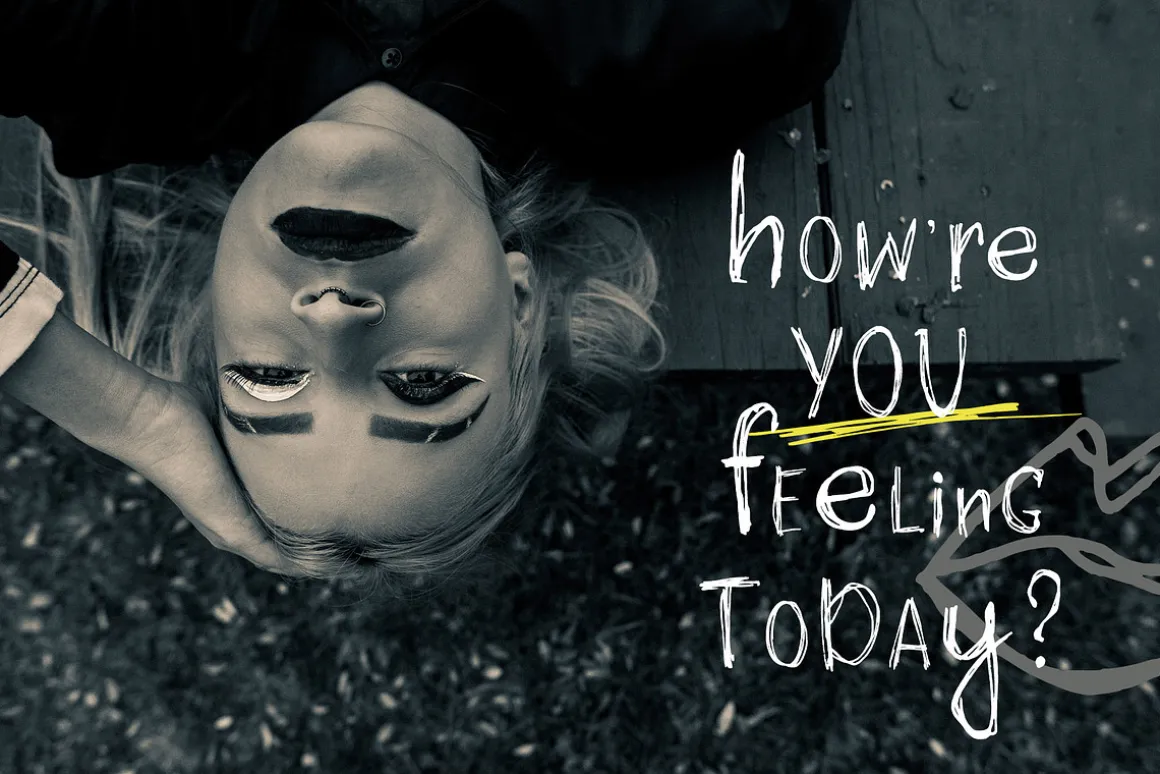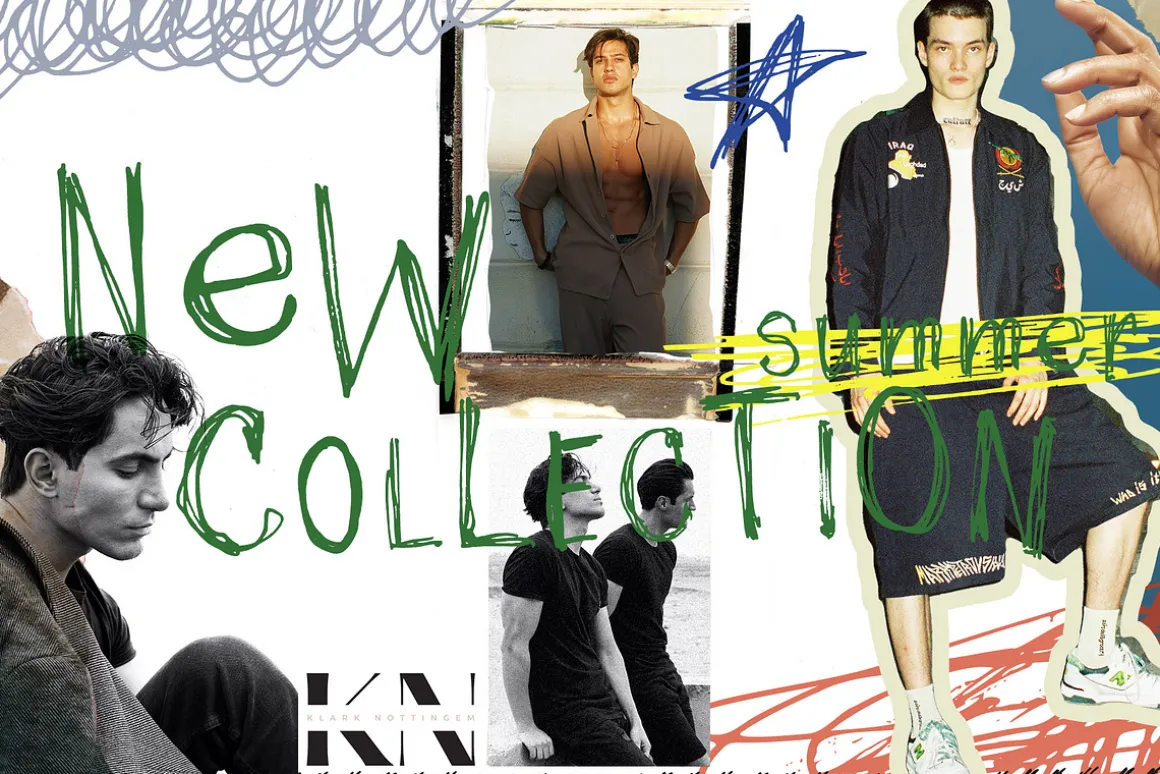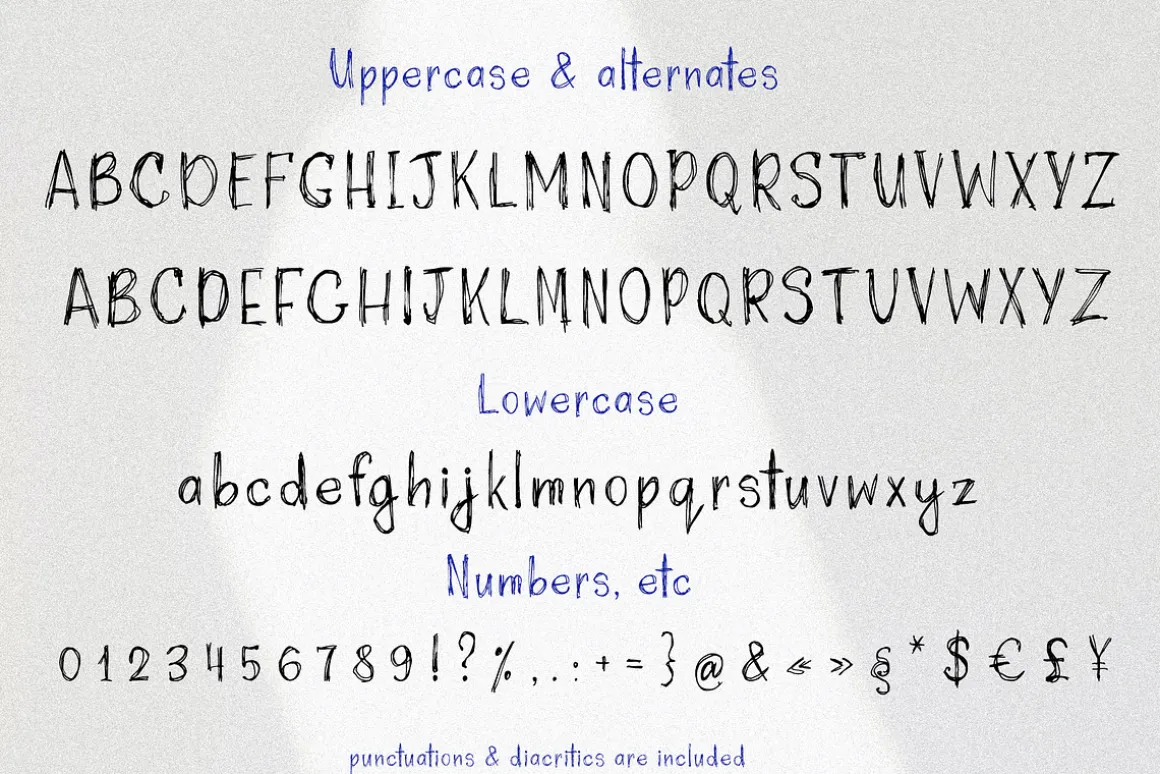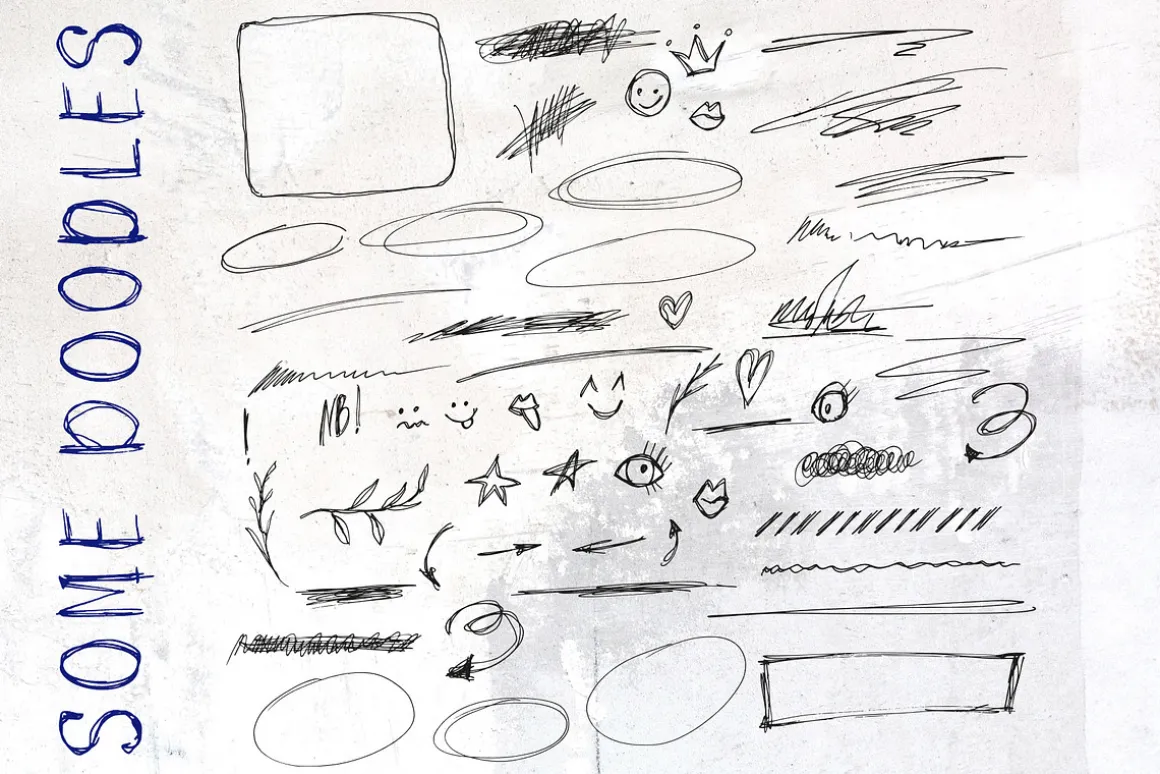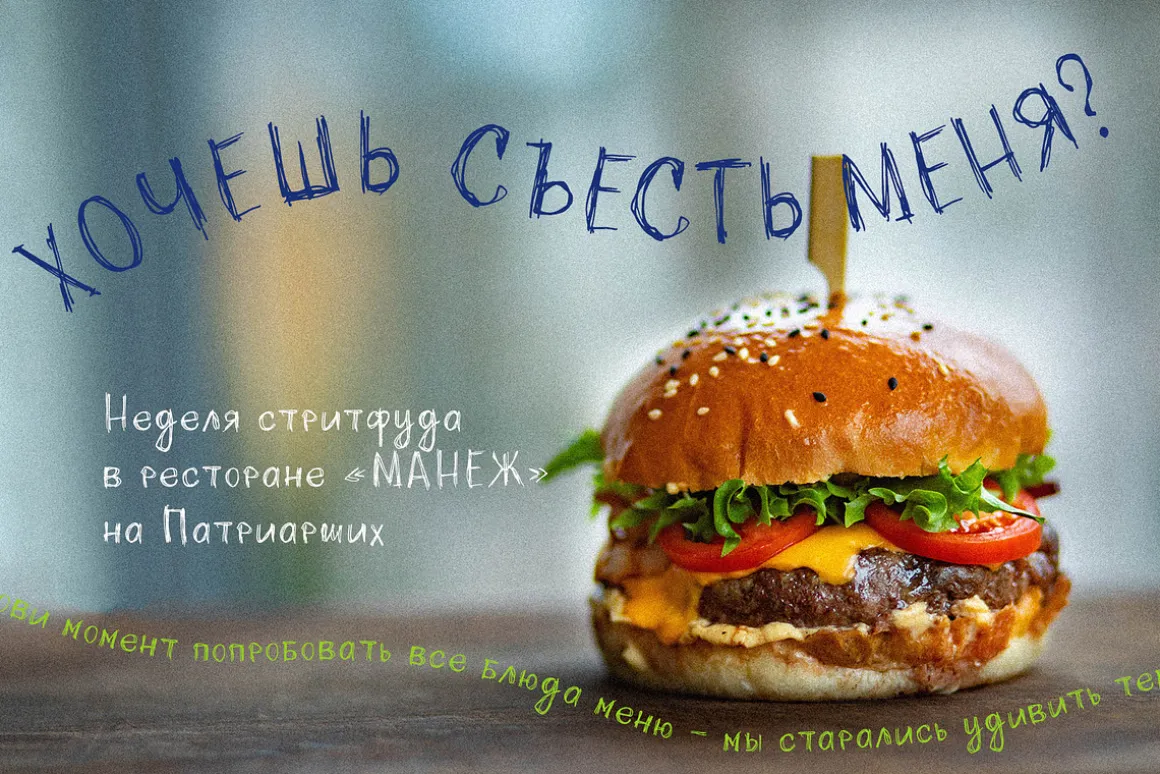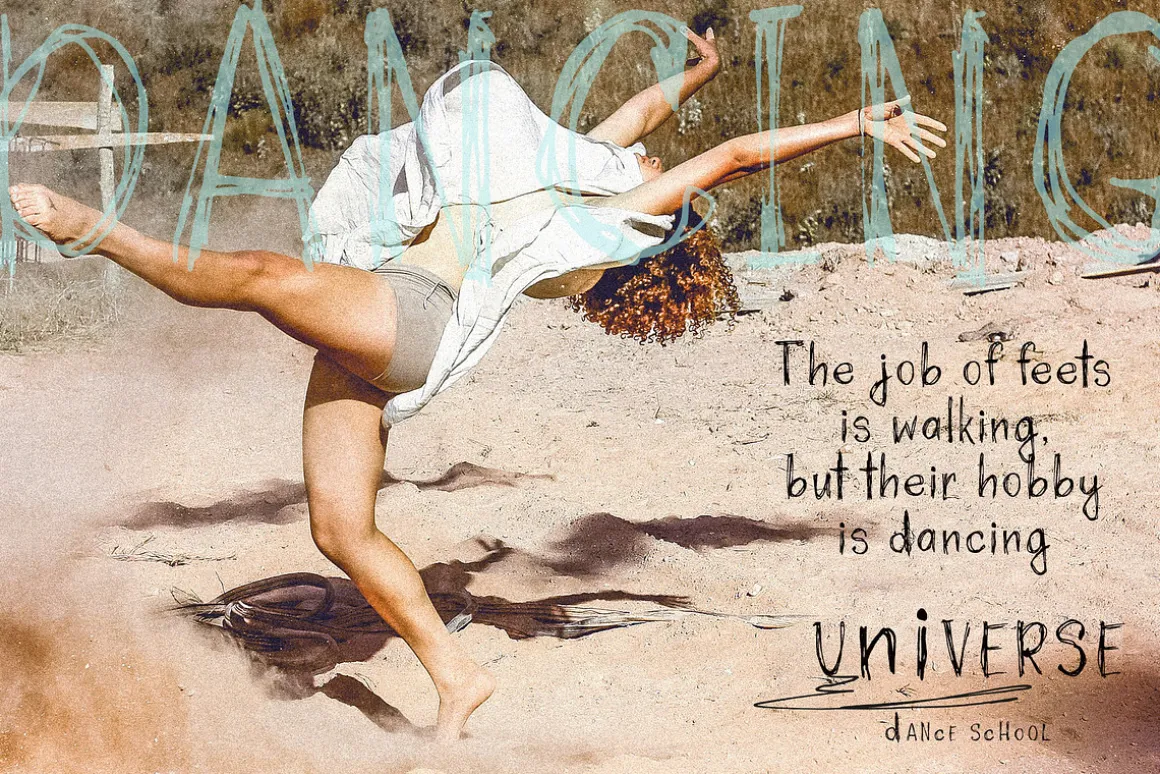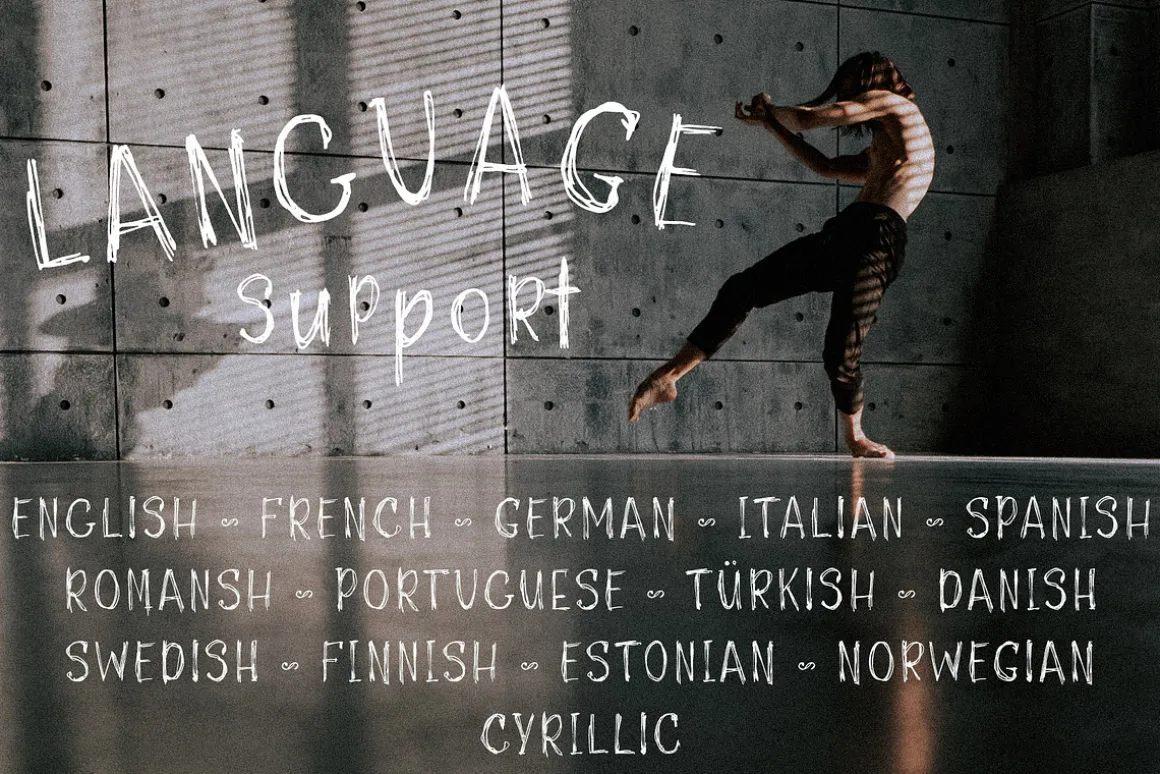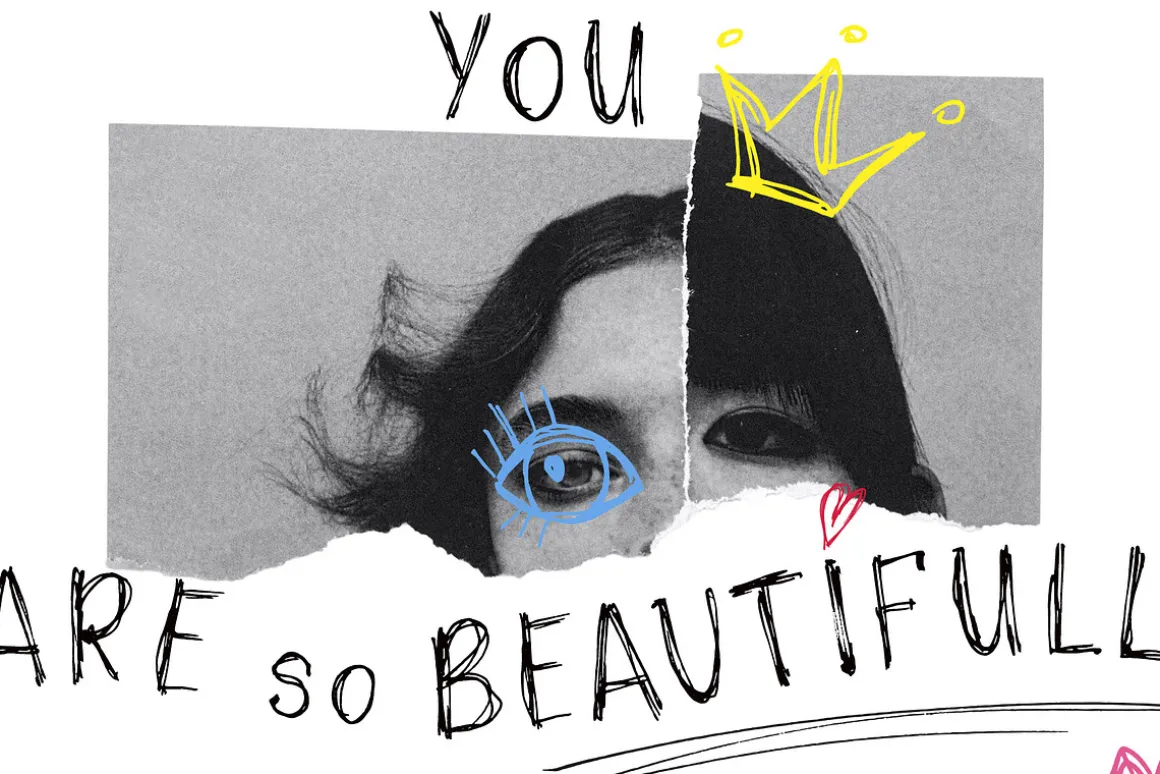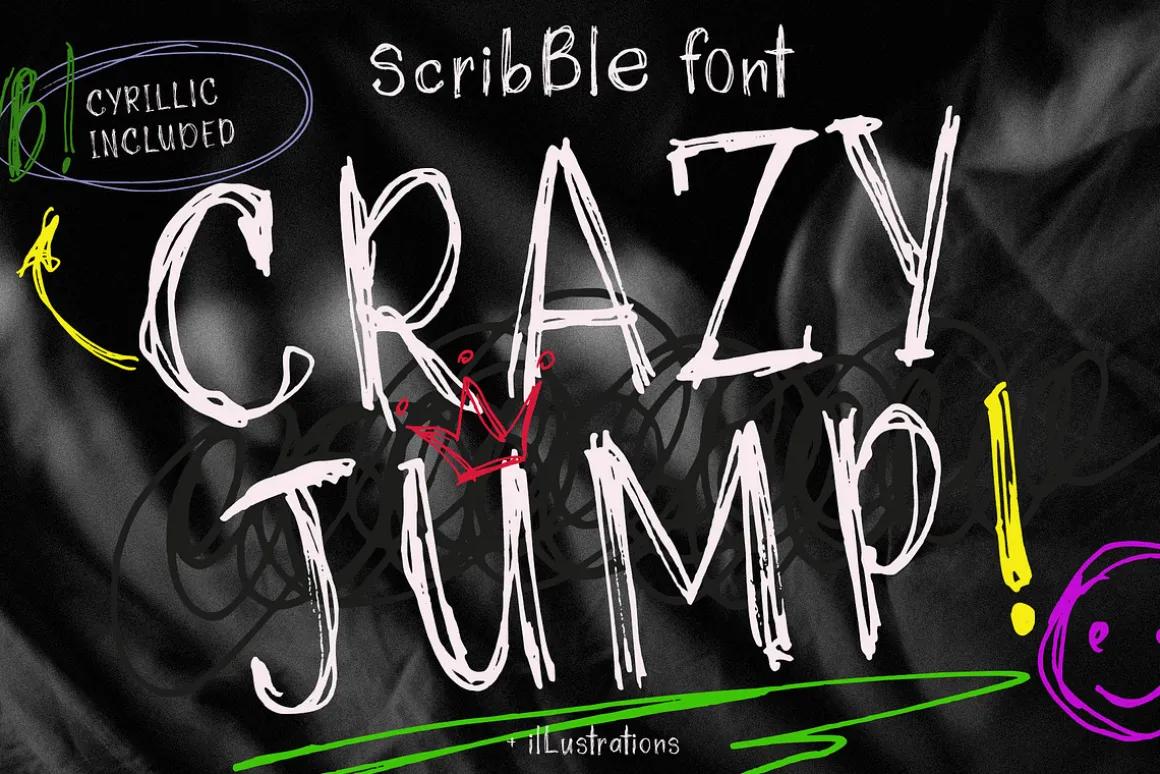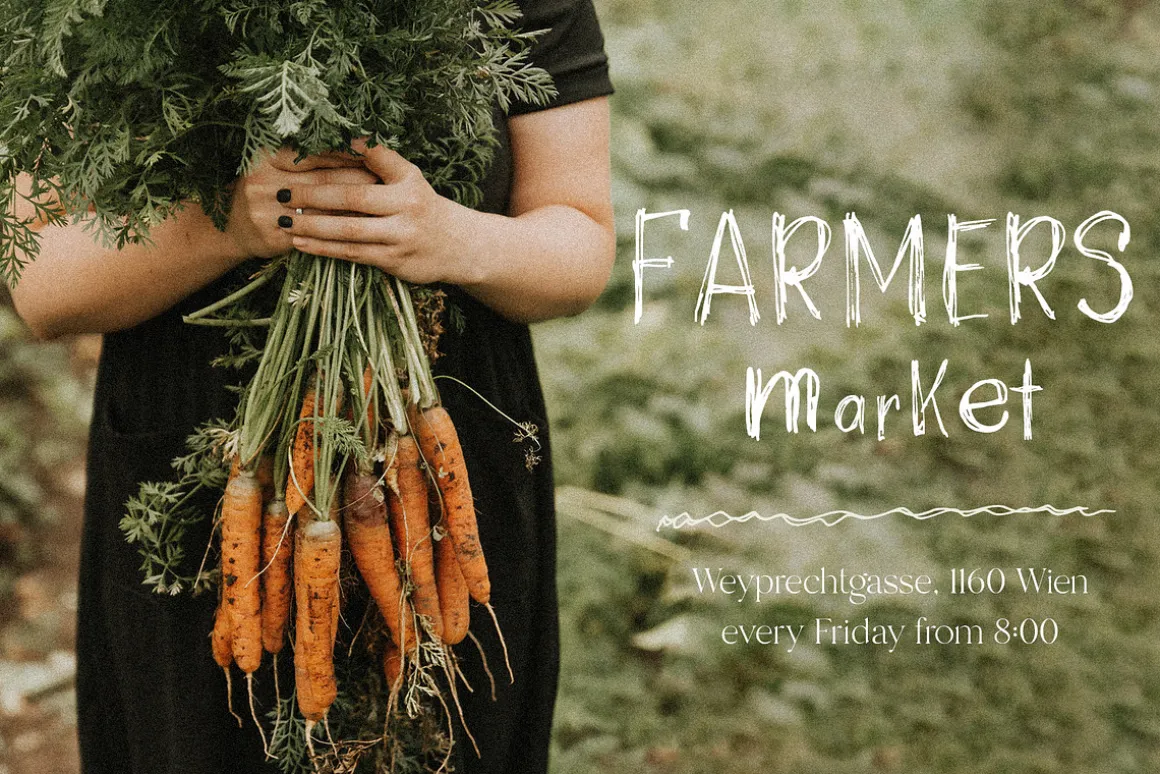
This is CRAZY JUMP— a new handwriting font with letters scratched with a fountain pen. It has a grunge look, it is very textured and decorative. Supports many languages, including Cyrillic. For your convenience, the set includes many hand-drawn illustrations. The font is suitable for the design on the different themes includes logo design, packaging.
CRAZY JUMP has extensivelanguage support, it includes English, French, German, Italian, Spanish, Portuguese, Danish, Norwegian, Swedish, Finnish, Estonian, Romansh, Turkish, Cyrillic. Need to know if your language is supported? Type any words in the text box below and see if all characters you need are there.